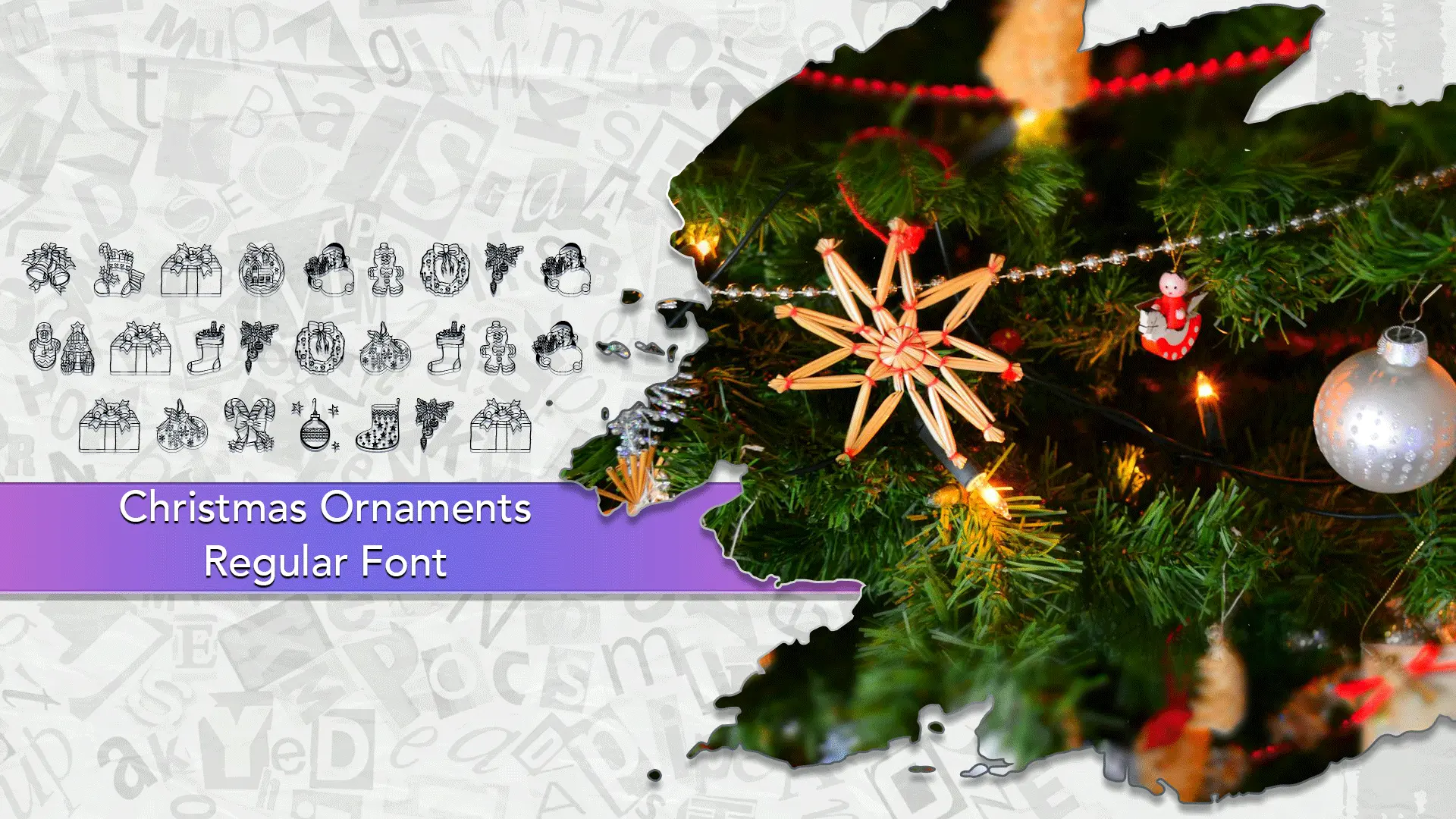
The Christmas Icons font family may be ideal for you if you enjoy working on an artistic design project. The lively, expressive look of this typeface, which was created by Woodcutter, makes it ideal for Digital Design. Get ready for the holidays with the Christmas Icons Font! Use it with your Cricut or Silhouette to make all kinds of festive projects. Create custom shirts, holiday signs, and ornaments from vinyl, paper, or iron-on materials. You can also use the icons to decorate your holiday cards, party menus, and more with lovely borders and accents. and other light-hearted visual projects.
Regular are the one primary font styles of the Christmas Icons font family. You may build dynamic, visually appealing text layouts with the distinct flair that each style offers. With crisp, readable lines and a relaxed tone.